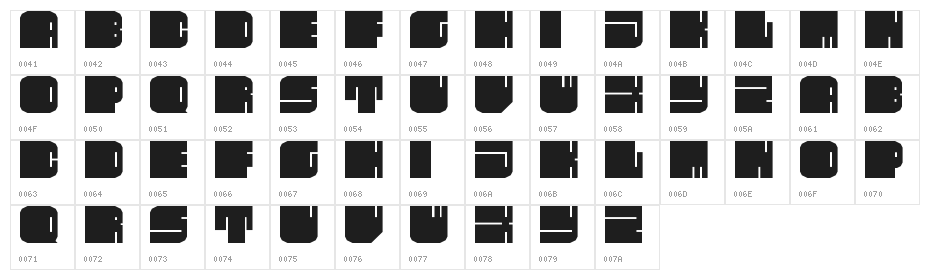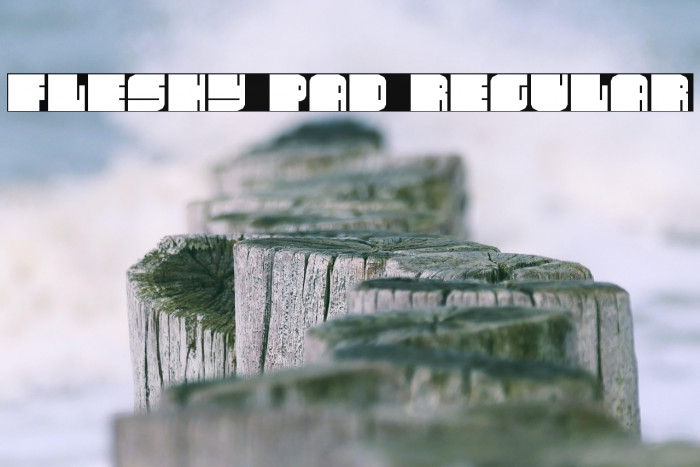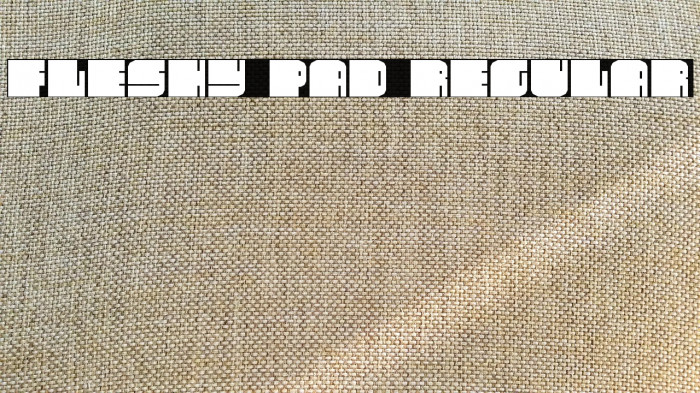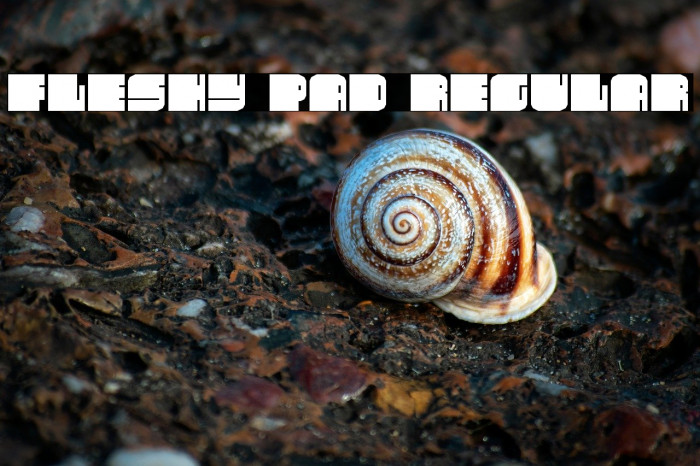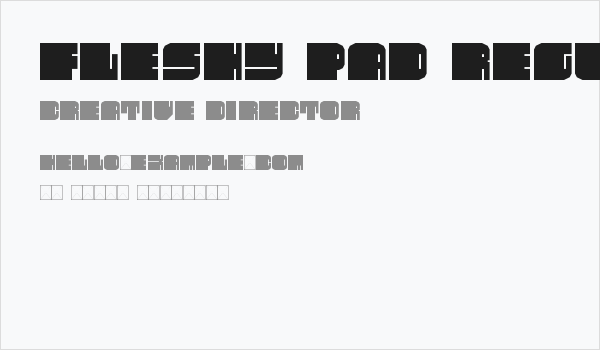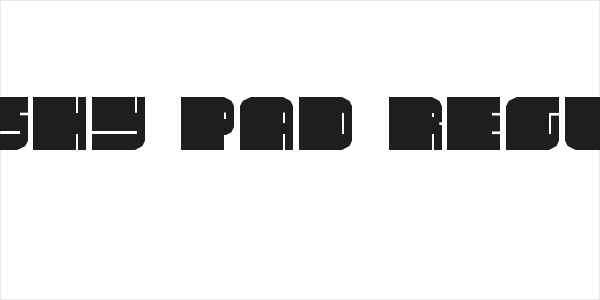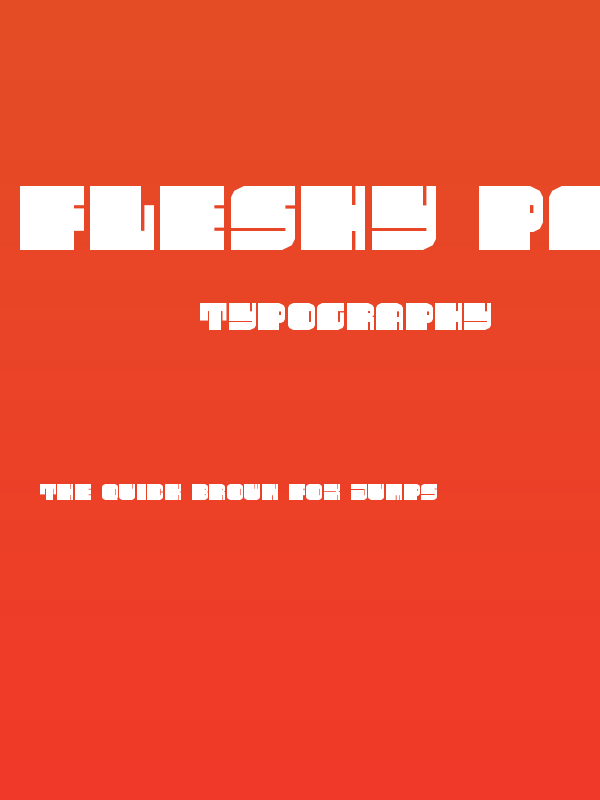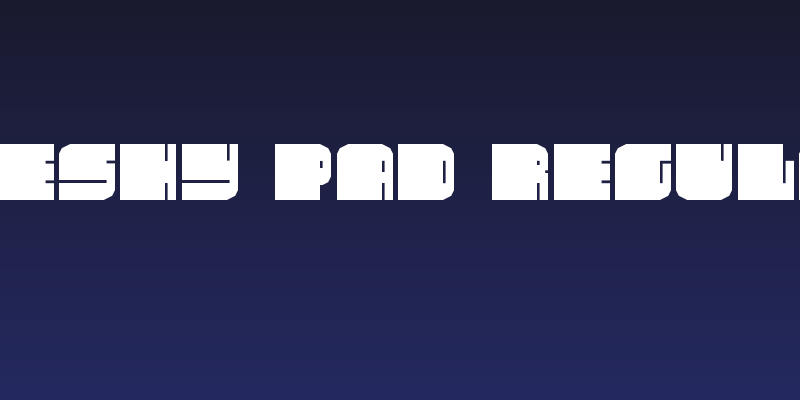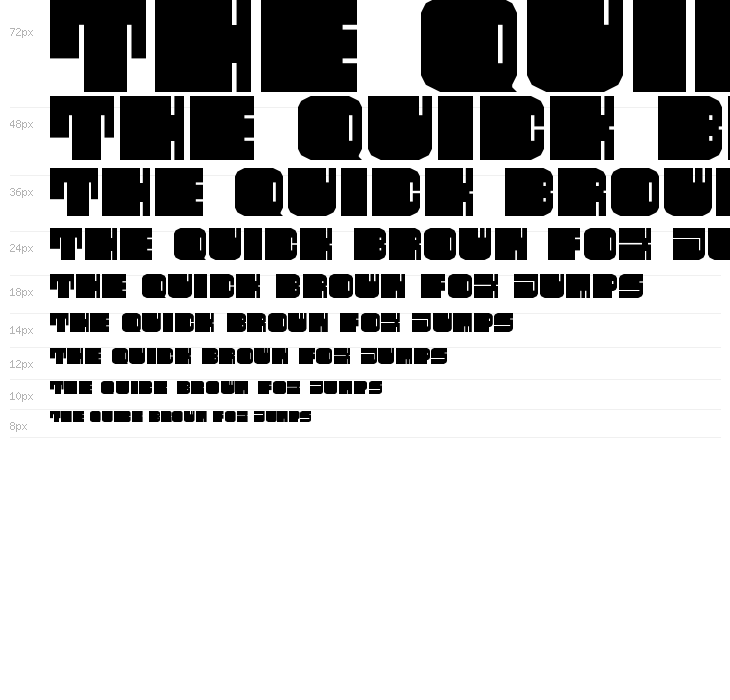
Fleshy Pad Regular Font
Fleshy Pad Regular Description
This font features a bold, geometric design with a strong emphasis on block-like shapes. The characters are constructed with thick, uniform strokes that give a sense of solidity and strength. The angular edges and straight lines contribute to a modern and industrial aesthetic. The uppercase letters are particularly striking, with a consistent height and width that create a cohesive look. The font's style is reminiscent of digital or futuristic themes, making it suitable for projects that require a bold and impactful visual presence.
| Proposed Projects | Ideal for use in digital media, technology branding, video game titles, and futuristic-themed posters. |